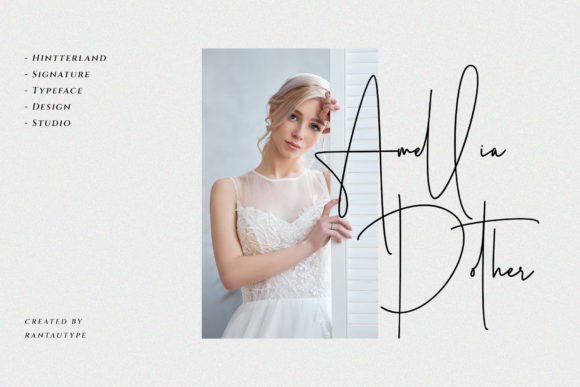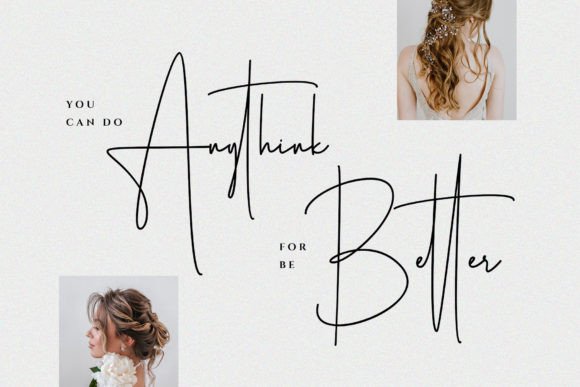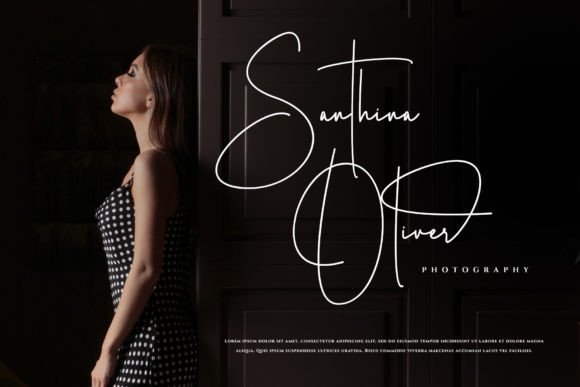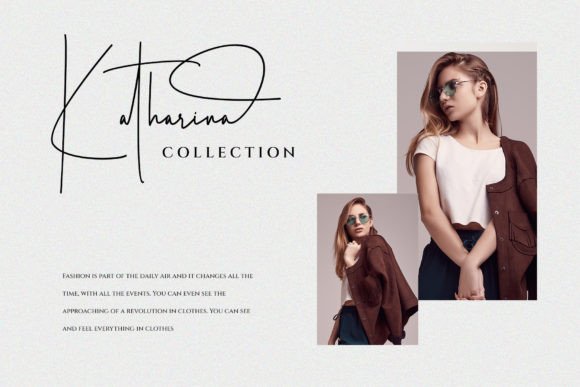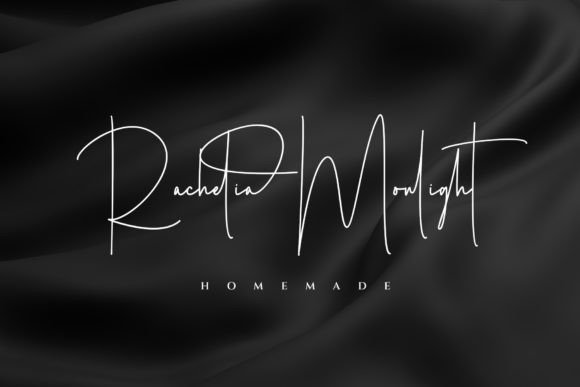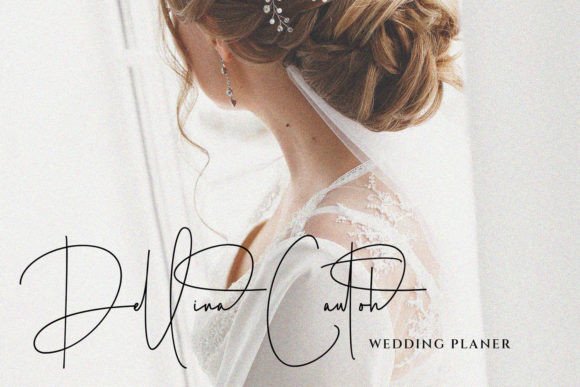
Introduction to Hintterland Signature Font
Have you ever been stuck on a design project, desperately searching for the perfect font to give your work that extra oomph? You know, that one font that makes your logo, signature, or quote stand out from the crowd and elevates your entire creative project to the next level?
Well, your search is over! Introducing the Hintterland Signature Font, a stylish and professional signature font that’s perfect for designers looking to add a touch of luxury and sophistication to their work. Whether you’re creating a watermark for photography, designing a wedding event logo, or crafting a business card, this font is sure to impress. With its elegant and modern design, it’s the perfect choice for any design project that requires a high level of quality and professionalism.
What makes the Hintterland Signature Font truly valuable is its versatility and ease of use. With a transparent background and a wide range of language support, it’s the perfect design resource for creatives working on projects that require a free download. Plus, with its high-quality design, you can trust that your work will look stunning on any platform.
Key Features of Hintterland Signature Font
- Unique, hand-drawn design ideal for creative projects requiring a personal touch
- High-quality font with crisp, clear lines and intricate details, suitable for print and digital applications
Honest Review: Hintterland Signature Font
As a designer, I’m always on the lookout for high-quality design resources to elevate my creative projects. The Hintterland Signature Font is one such resource that caught my attention, and I’m excited to share my thoughts on it.
One of the standout features of this font is its unique aesthetic. It’s perfect for creating a whimsical, playful feel in your designs. I particularly love using it for illustrations and graphics, as it adds a touch of personality to my work.
– Unique design aesthetic
– Perfect for illustrations and graphics
– High-quality design resource that’s sure to elevate your creative project
– Not ideal for formal or corporate designs (may come across as too playful)
Overall, I’m a big fan of the Hintterland Signature Font. It’s a fantastic addition to any designer’s toolkit, and I’m excited to see how it will inspire my future creative projects.
- Perfect for illustrations and graphics
- Unique design aesthetic
To get the most out of the Hintterland Signature Font, use it for designs that require a touch of elegance and sophistication. Pair it with a transparent background to make your design stand out.
The Hintterland Signature Font is ideal for various design projects, including branding, packaging, and editorial designs. Its unique style and high quality make it a valuable design resource for any creative project.